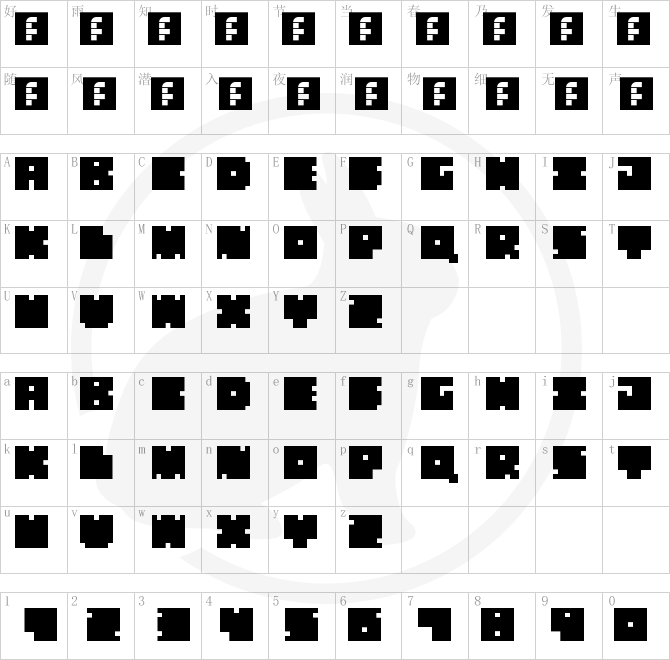
- Font Name:ICE CUBED
ICE-CUBED-Regular.ttf is a very beautiful artistic font, ICE-CUBED-Regular.ttf is widely used in the design and printing of various books and pictures,ICE-CUBED-Regular.ttf has a strong visual impact,ICE-CUBED-Regular.ttf is a commonly used font in newspapers, magazines and books, and is used in posters, e-commerce Poster design, store design, logo design, font design and other fields.ICE-CUBED-Regular.